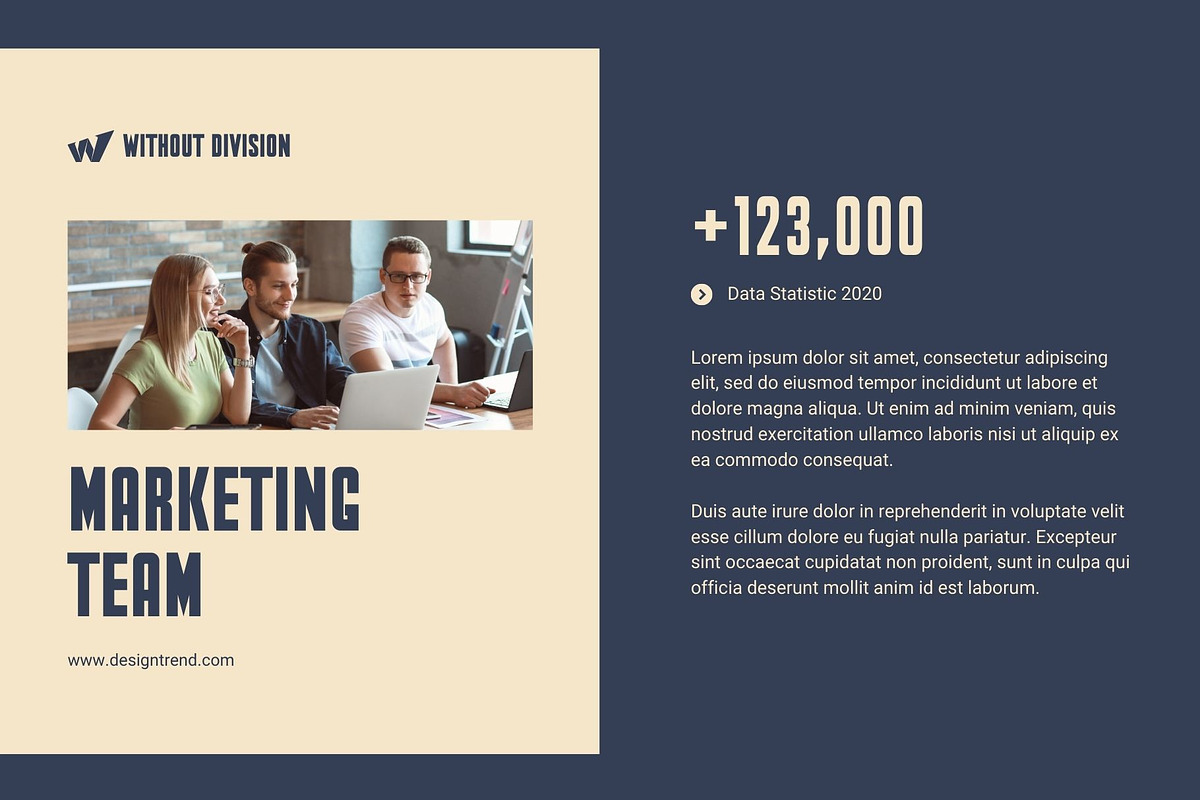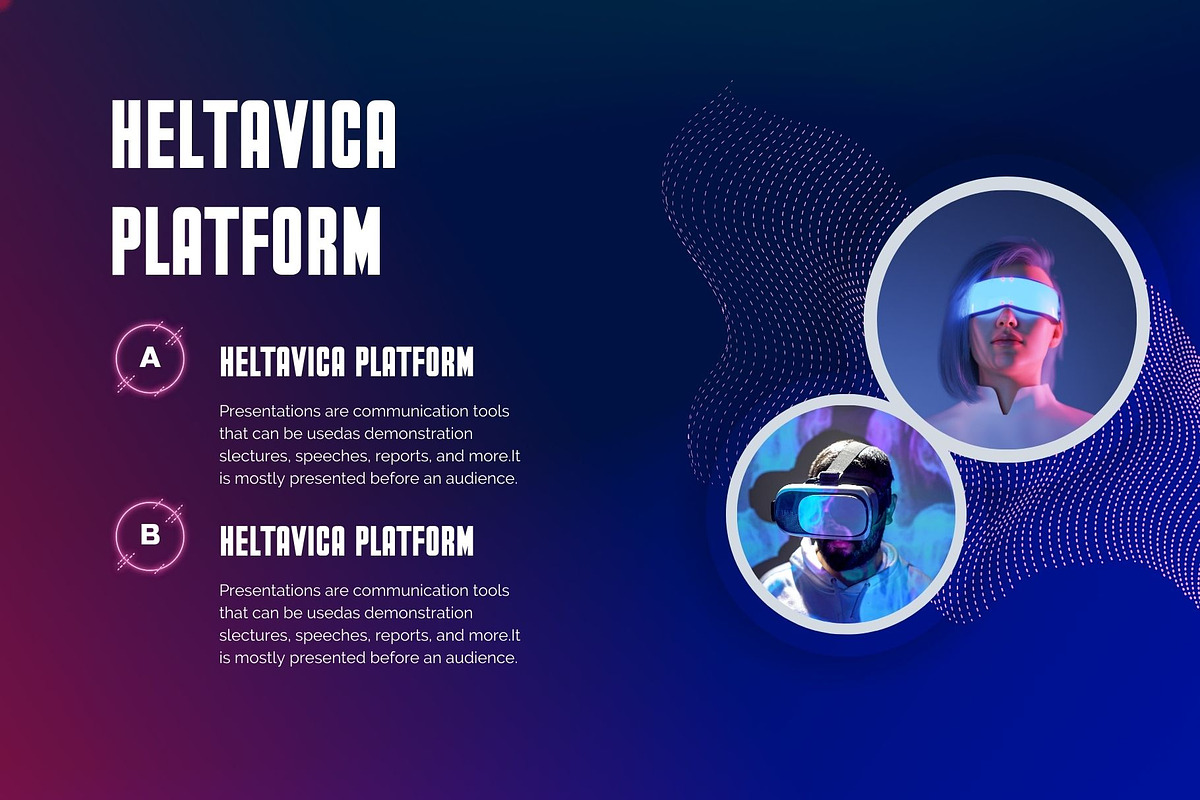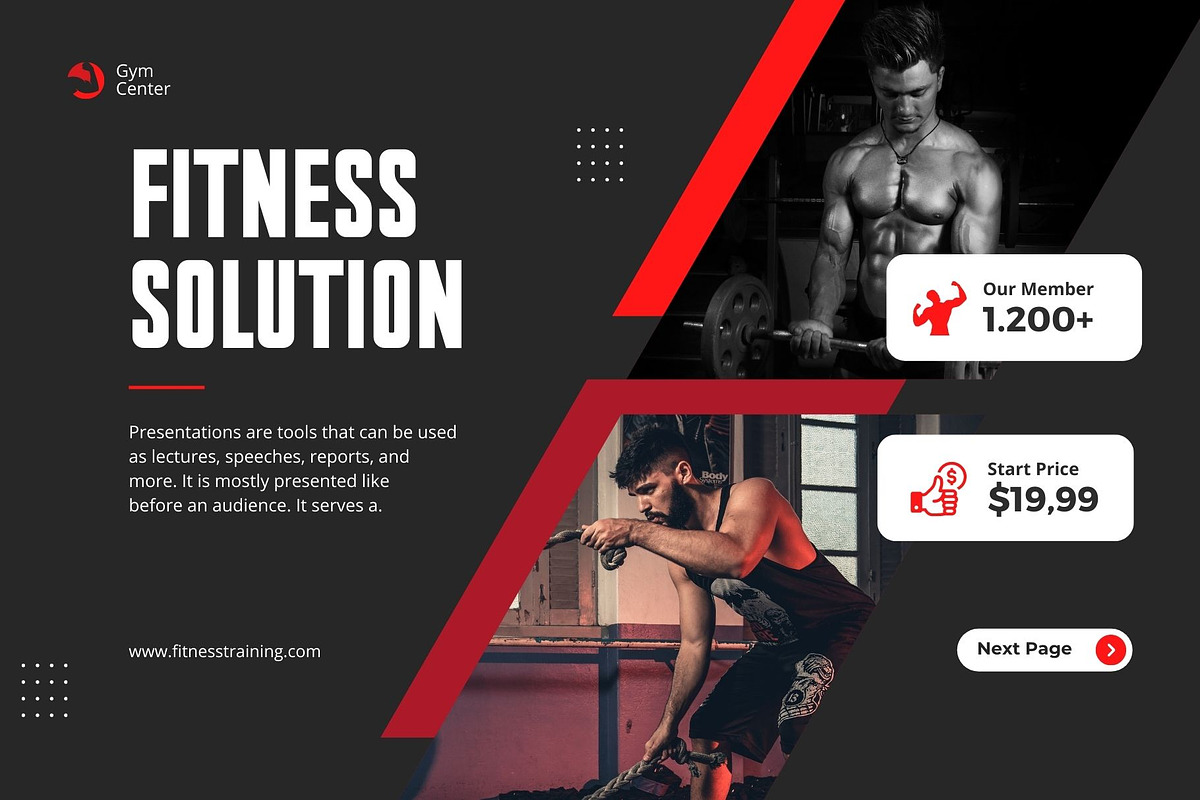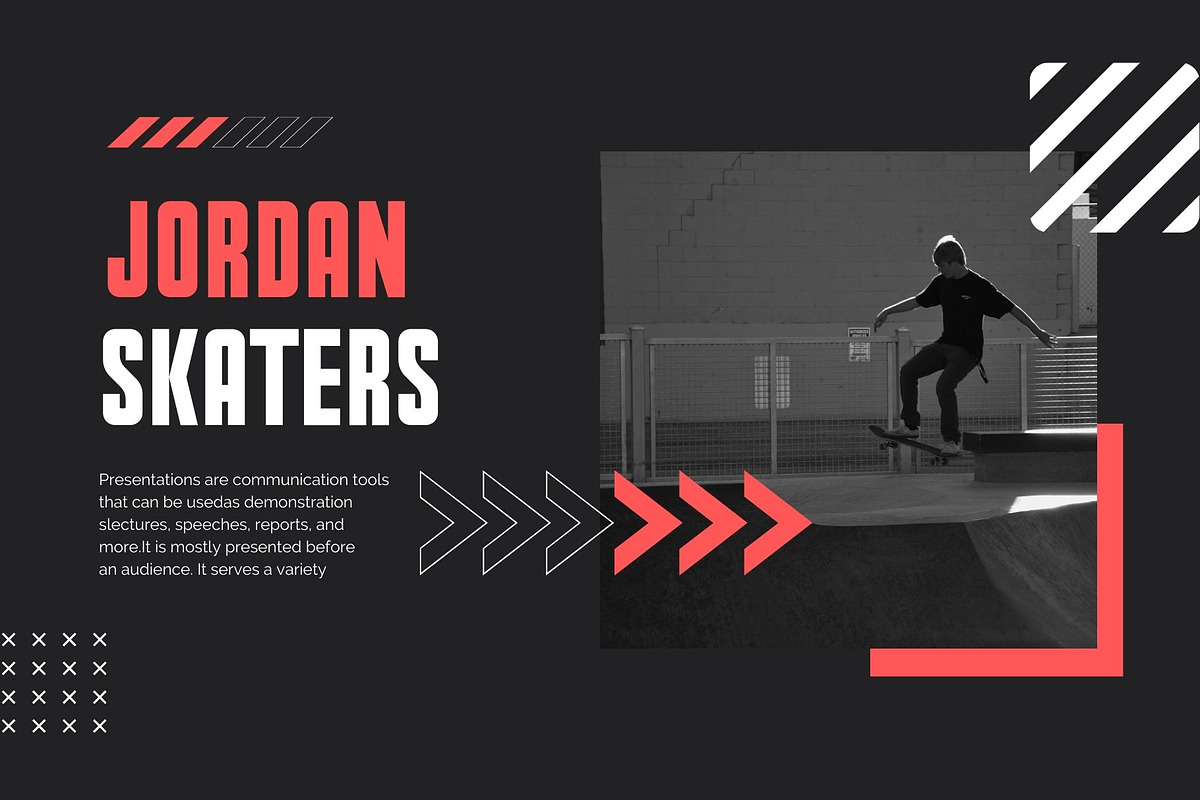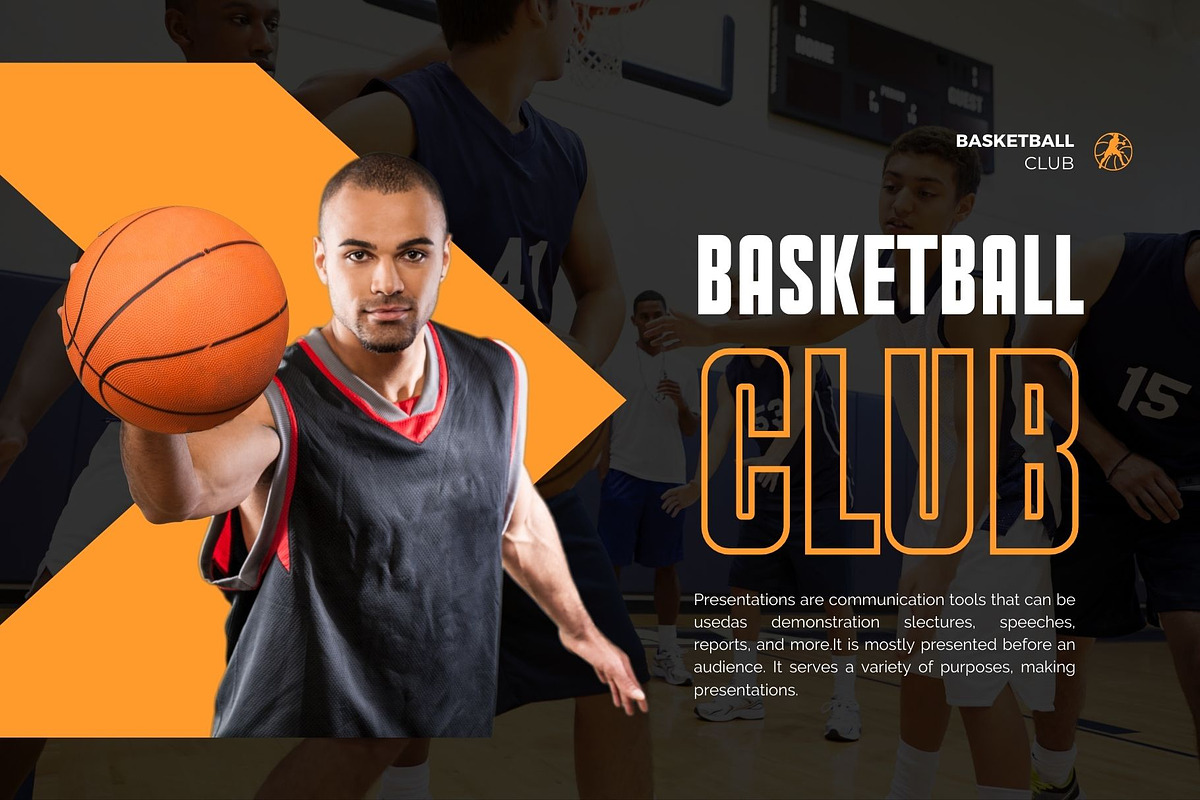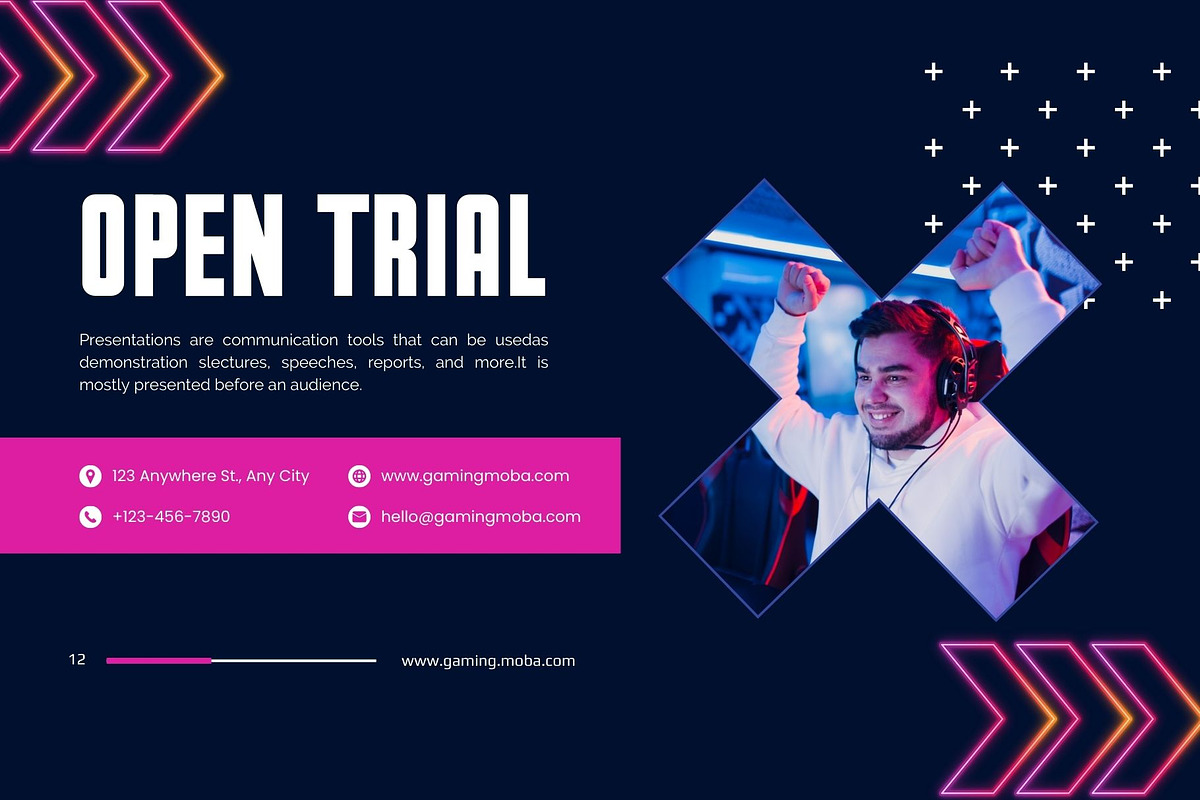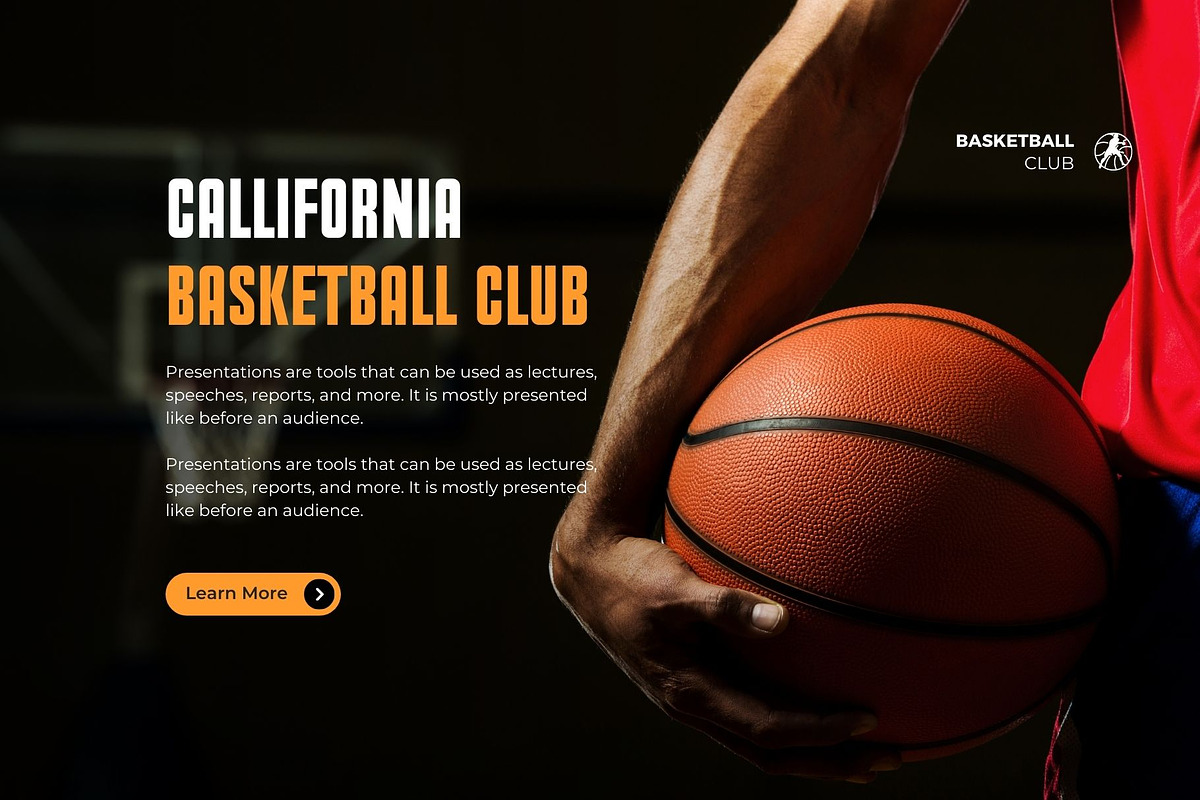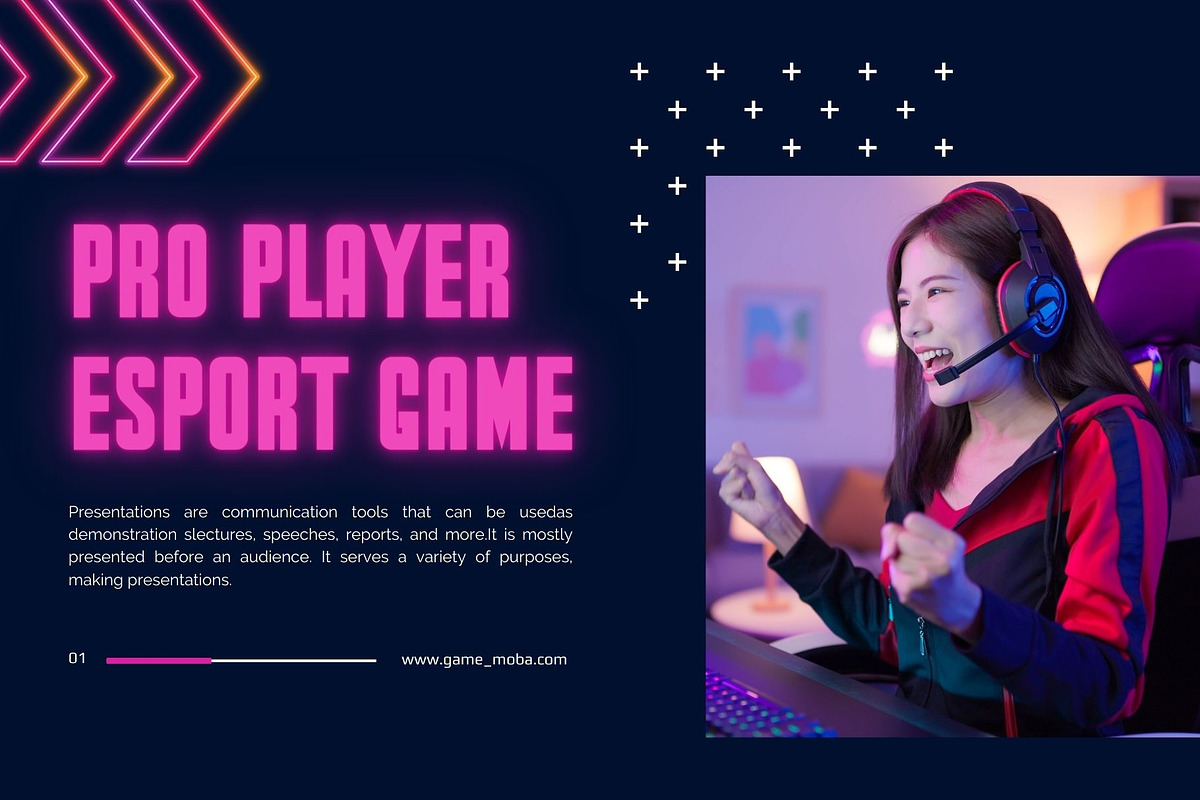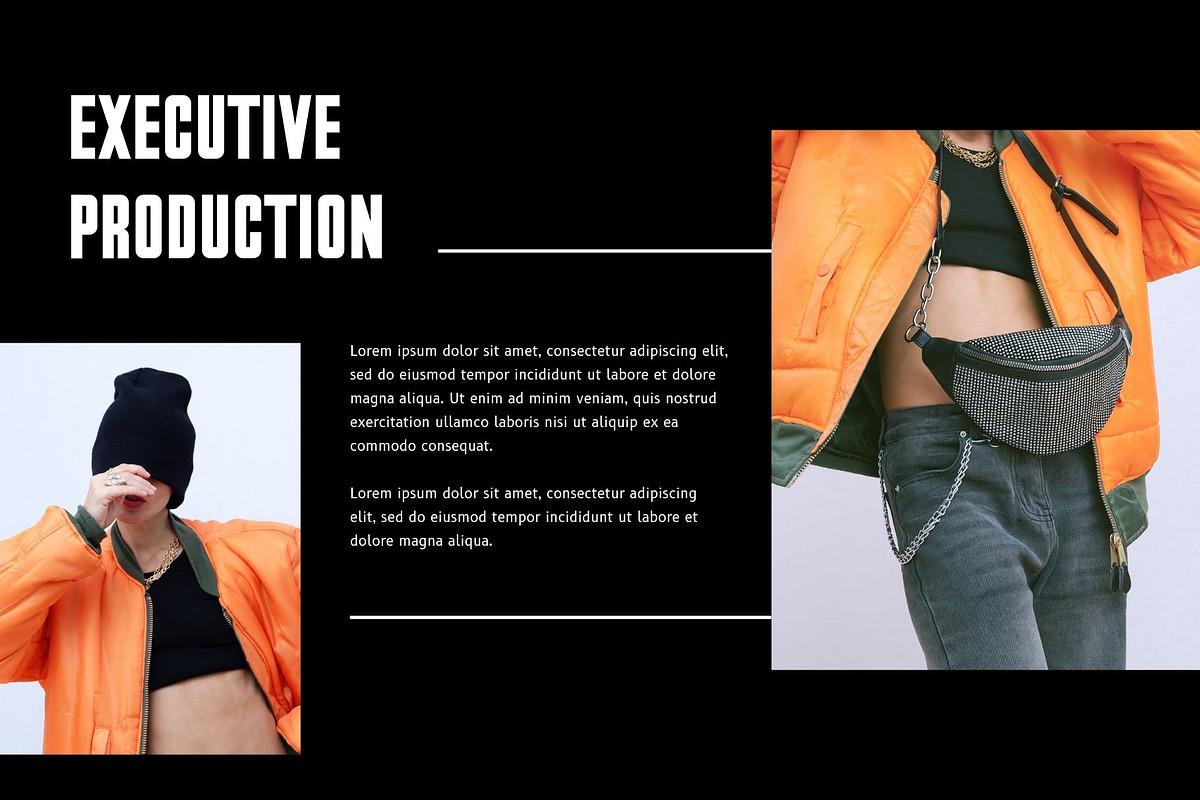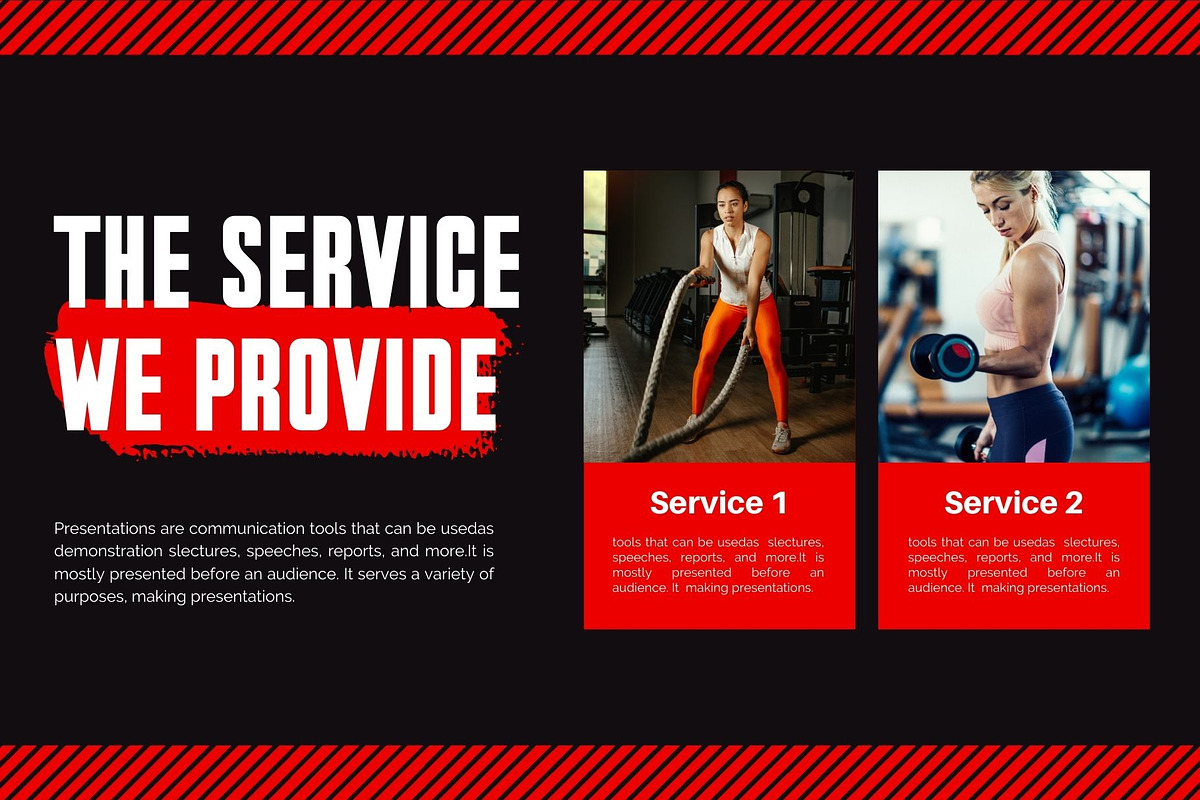
Quickly Exquisite Display Sans font
Quickly Exquisite Display Sans Serif font inspired by the famous minimalist logo perfect for the purposes of designing templates, brochures, videos, advertising branding, logos, invitation, layout design, elegant crafting, beauty design and more.